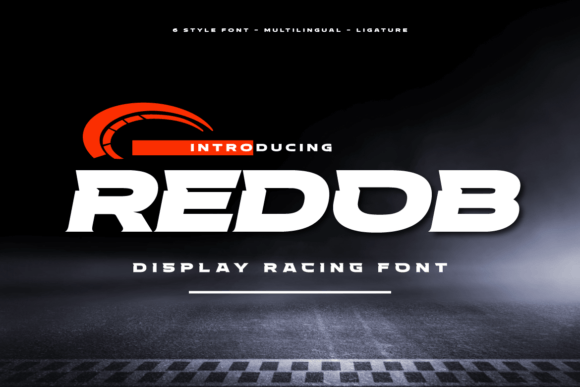
Unleash the Power of Expression with Redob Font: The Svelte Gateway to Design Brilliance!
In a world of monotonous fonts, Redob Racing Typeface bursts onto the scene like a blazing comet, ready to ignite your design vision and leave an indelible mark on your creative journey. This captivating display font family, meticulously crafted by Productype, is a stroke of genius, a symphony of curves and angles that dance together in perfect harmony.
With its bold and sporty personality, Redob Font is the ultimate choice for those who seek to make a statement, to leave an imprint on the world with their designs. Whether you're crafting compelling PowerPoint presentations, designing eye-catching posters, or creating dynamic logos that demand attention, Redob Font is your secret weapon, your trusty companion in the realm of visual communication.
No longer will your designs blend into the background, lost in a sea of mediocrity. With Redob Font, you'll command attention, captivating your audience with every stroke, every curve, every carefully placed detail. Its sleek and modern aesthetic is a breath of fresh air, a departure from the ordinary, propelling your designs to new heights of excellence.
Imagine your PowerPoint presentations transformed into dynamic, engaging masterpieces that keep your audience on the edge of their seats. The bold lines and sharp angles of Redob Font will infuse your slides with an energy that resonates, leaving a lasting impression that lingers long after the presentation is over.
But Redob Font's prowess extends far beyond PowerPoint. Unleash its potential in creating posters that leap off the wall, demanding attention with their vibrant colors and captivating typography. Its sporty personality lends itself perfectly to designs that ooze adrenaline and excitement, making it the ideal choice for sports-related events, promotions, and branding.
And when it comes to logos, Redob Font stands tall, a beacon of boldness and originality. Its unique character will help you create logos that stand out from the crowd, logos that speak volumes about your brand's identity, leaving an indelible mark on the minds of your customers.
The Redob Font family is a versatile chameleon, adapting seamlessly to a myriad of design styles. Whether you prefer a classic, timeless look or a contemporary, cutting-edge aesthetic, Redob Font has the versatility to complement your vision, elevating your designs to new levels of sophistication and impact.
Don't settle for ordinary fonts that fade into oblivion. Embrace the power of Redob Font, a font family that will ignite your creativity, fuel your passion for design, and leave an indelible mark on your audience.